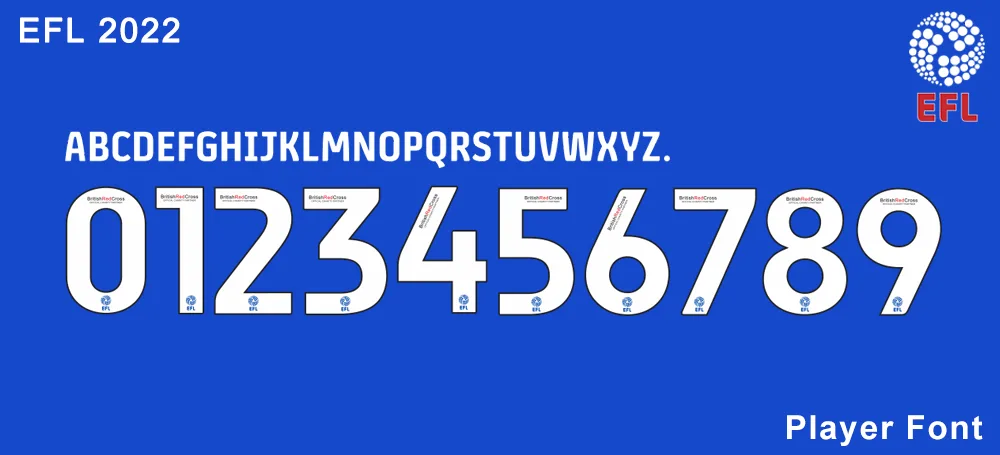
EFL 2022-23 Font
The English Football League (EFL) adopted new fonts in the 2022-2023 season. The New England Football League is very different from the previous font. It is more modern and standard, especially compared with extraordinary old fonts. We provide font files and vector files. The font contains TTF and OTF files. Can be installed and used